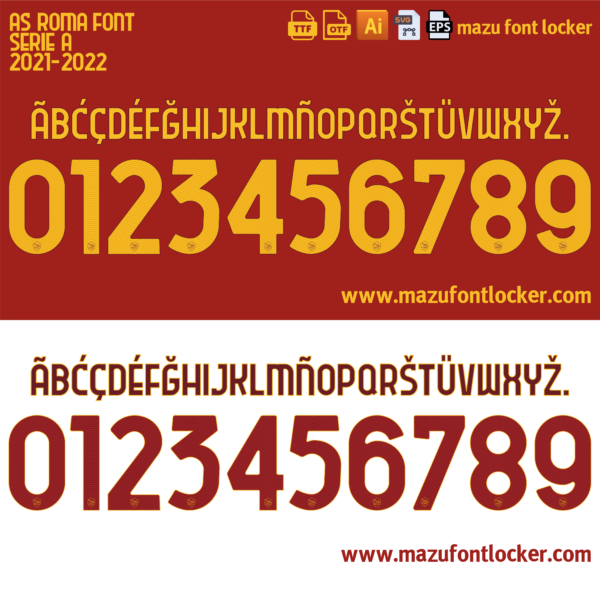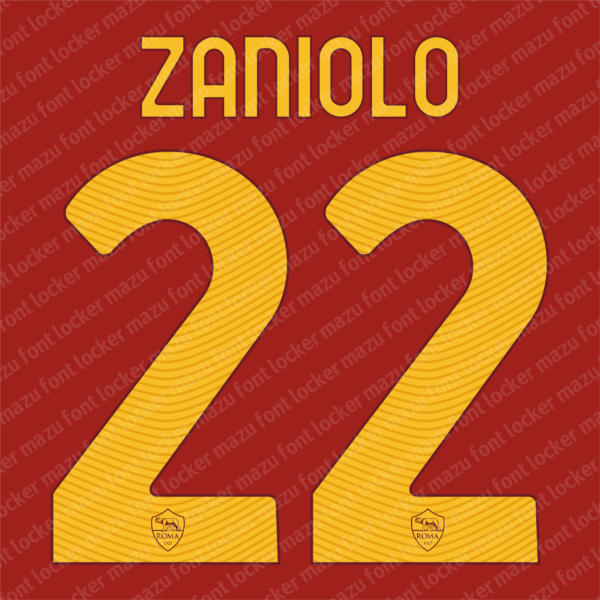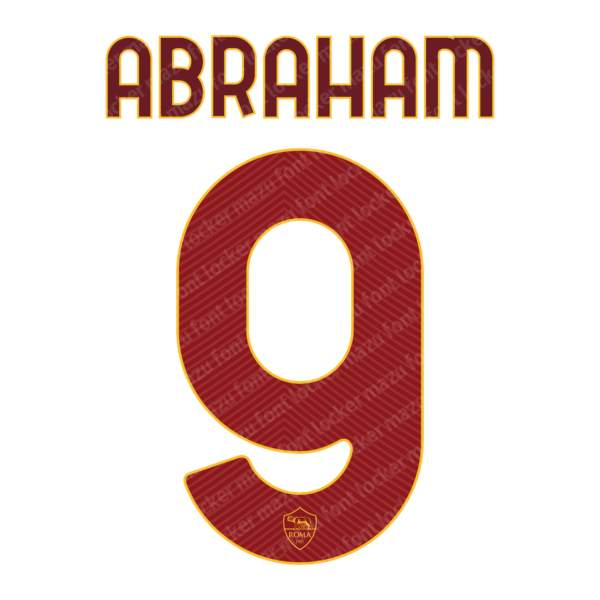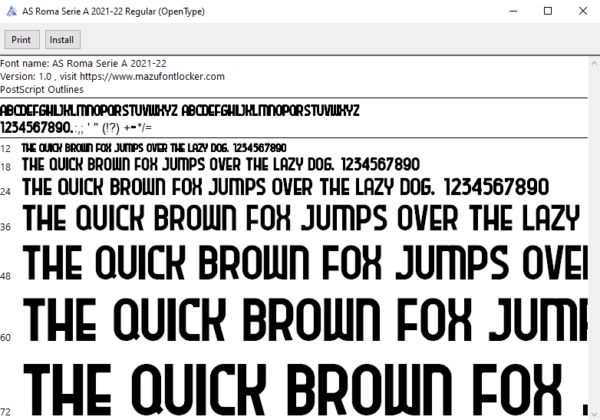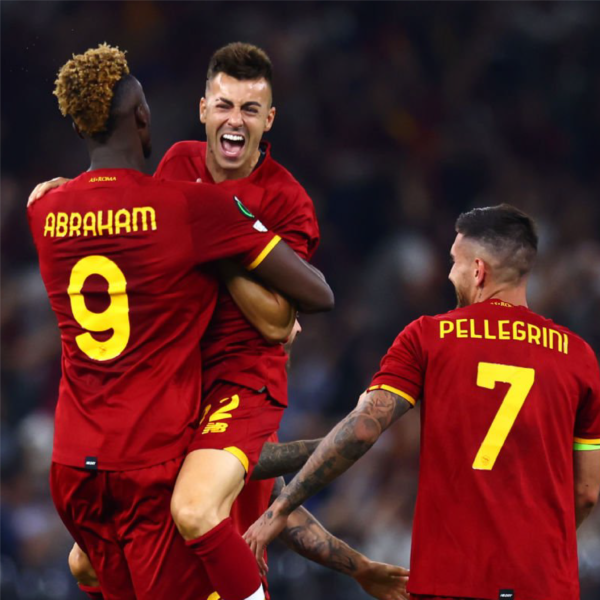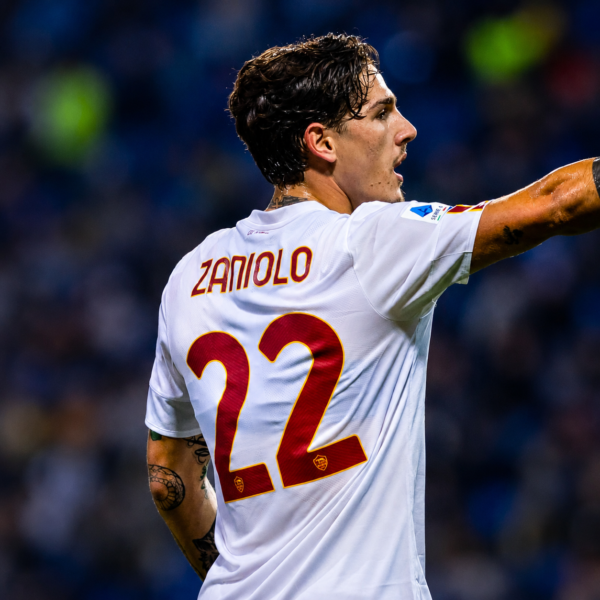
AS Roma 2021-2022 Font Vector – Epic Giallorossi Masterpiece
Download AS Roma 2021-2022 Font now and bring the legendary spirit of the Giallorossi straight into your designs. This premium vector font perfectly captures the bold, passionate, and powerful identity of AS Roma during their unforgettable 2021-2022 season. Every letter is crafted with sharp details, dynamic curves, and the iconic energy that reflects the club’s fighting spirit on the pitch.
Whether you’re creating matchday posters, fan merchandise, social media content, t-shirt designs, or digital art, this AS Roma 2021-2022 Font delivers professional quality with stunning sharpness and vibrant character. The font combines modern elegance with the raw emotion of Roma’s iconic red and yellow colors, making every headline and text feel like a victory celebration.
- Authentic 2021-2022 AS Roma jersey lettering style
The authentic lettering style helps recreate the classic look of the AS Roma 2021-2022 kit with professional accuracy.
Unlike generic jersey fonts, this set is designed with a strong focus on authenticity and accuracy. Every detail is based on the original match lettering style used during the 2021-2022, helping designers and collectors create realistic football shirt designs.
This AS Roma 2021-2022 font vector set is designed for authentic football jersey customization and works perfectly for retro football projects, collector designs, and professional sportswear artwork.